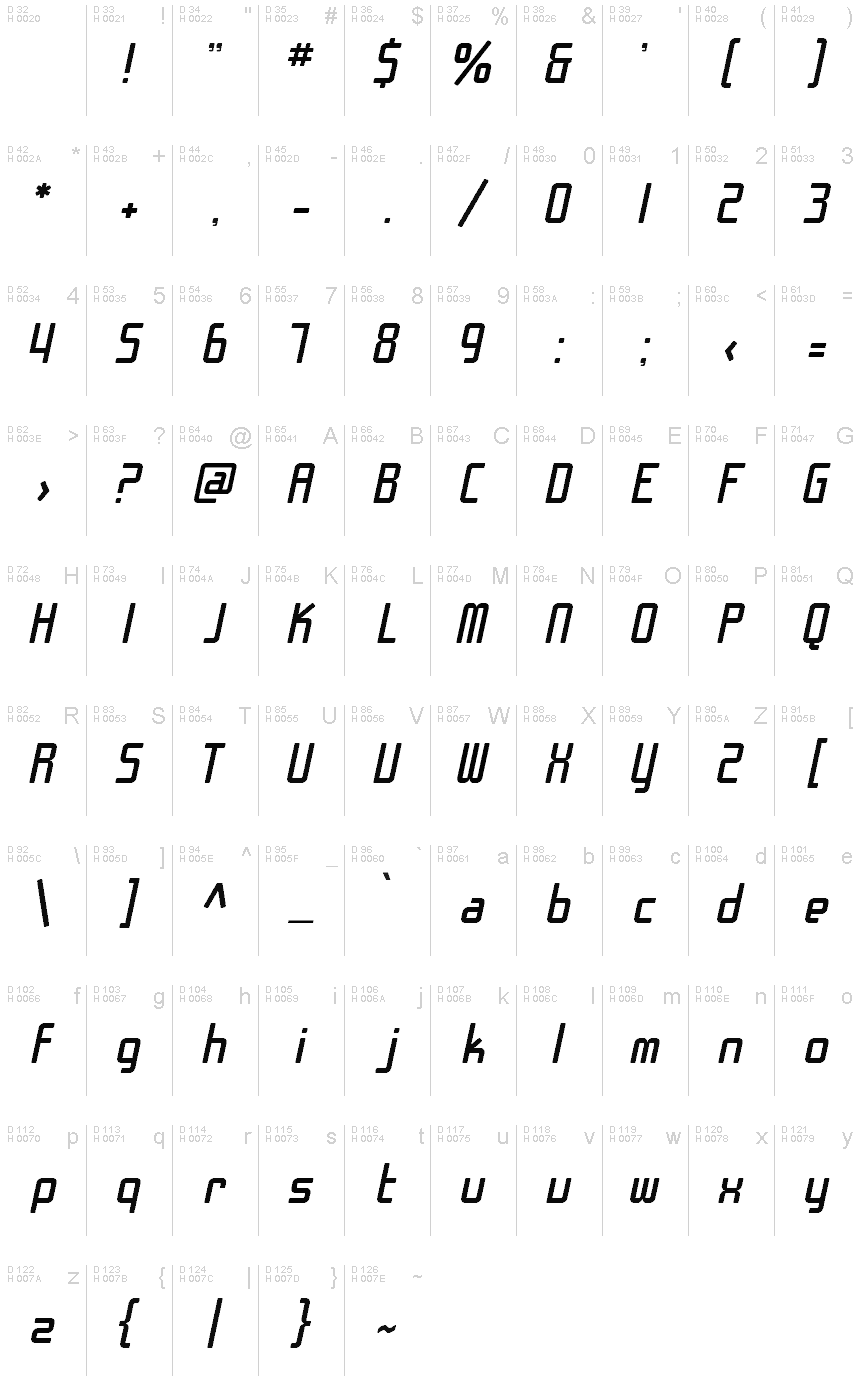
SF Chrome Fenders Oblique
SF Chrome Fenders Oblique emerges from the creative portfolio of ShyFonts Type Foundry as a striking display font that exudes a futuristic techno vibe. Its semi-light weight harmonizes with the oblique style to offer a dynamic and forward-moving aesthetic, perfect for projects that demand a touch of modernity and sophistication.
Designed to make an impact, SF Chrome Fenders Oblique boasts crisp lines and angular cuts that mirror the precision of technology. This font's sleek contours and slanted orientation add an element of speed and progressiveness, making it an excellent choice for titles, headers, and any visual communication that requires a distinctive edge.
Whether you're crafting branding materials for innovative startups or looking to infuse your graphic designs with a sense of high-tech flair, SF Chrome Fenders Oblique offers versatility while maintaining its unique character. Its unmistakable style is poised to elevate your creative work with its contemporary appeal.